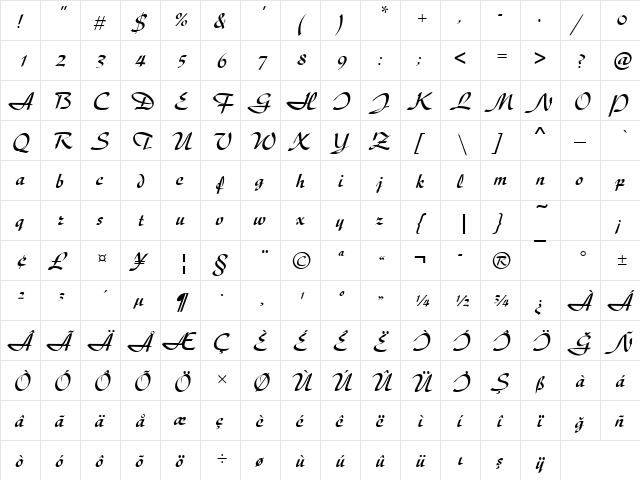
TrSah DiskusD Regular
Design Context for TrSah DiskusD Typeface
TrSah DiskusD is a composed and adaptable typeface that performs quietly and consistently across a wide range of design contexts.